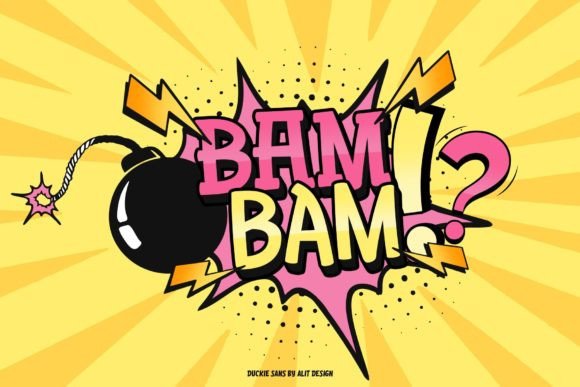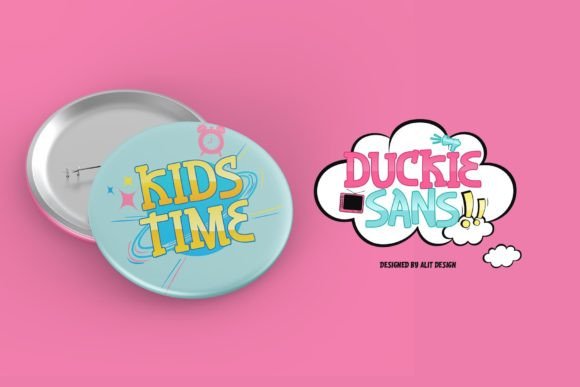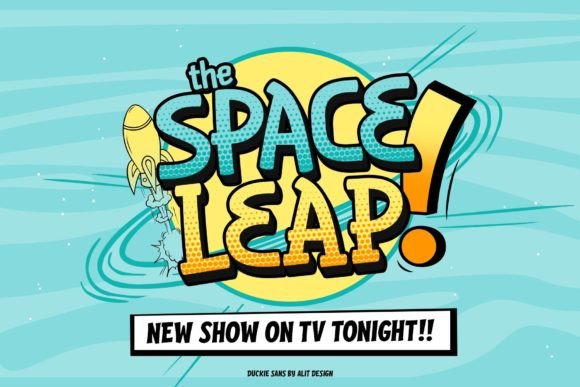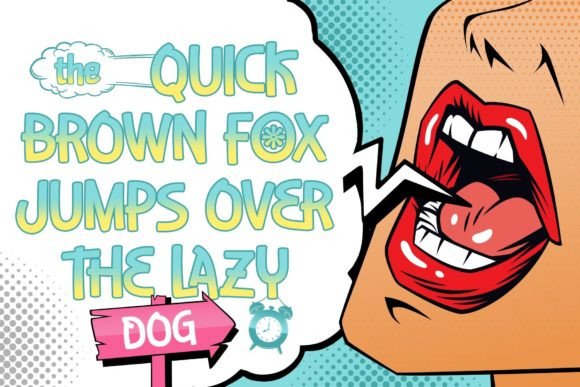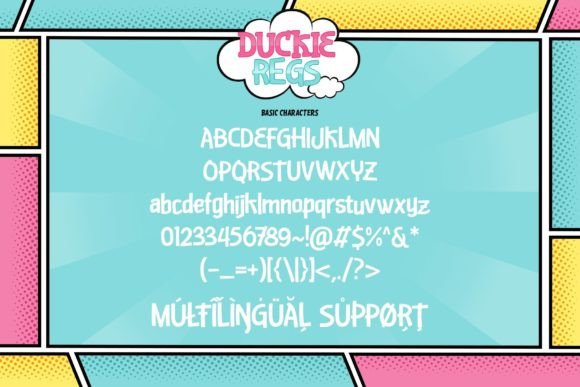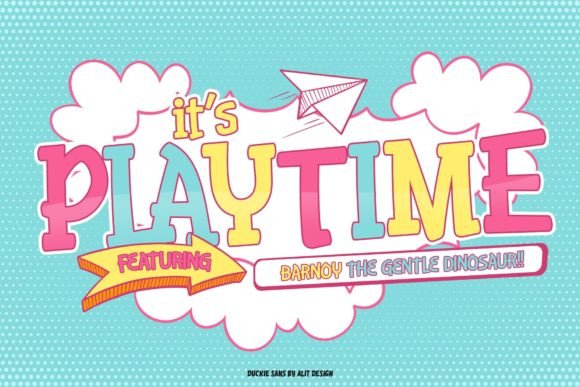
Duckie Sans Font: The Ultimate Choice for Playful and Kid-Friendly Designs
Are you a designer or crafter looking for a font that can add a touch of playfulness and friendliness to your designs? Look no further than Duckie Sans Font! This adorable display font is perfect for creating kid-friendly designs, cartoonish posters, headlines, eye-catching social media posts, and more. In this article, we’ll dive into the world of Duckie Sans Font and explore its features, benefits, and uses.
What is Duckie Sans Font?
Duckie Sans Font is a cute and playful display font that is designed to bring a smile to your face. Its cheerful personality and friendly vibe make it an ideal choice for designers and crafters who want to create fun and engaging designs. The font features rounded edges, soft curves, and a bouncy feel that gives it a unique and charming personality.
Key Features of Duckie Sans Font
So, what makes Duckie Sans Font so special? Here are some of its key features:
- Cute and Playful Design: Duckie Sans Font is designed to be fun and playful, making it perfect for kid-friendly designs and projects.
- Cheerful Personality: The font’s cheerful personality and friendly vibe make it ideal for creating designs that appeal to a younger audience.
- Rounded Edges and Soft Curves: The font’s rounded edges and soft curves give it a smooth and friendly feel.
- Bouncy Feel: The font’s bouncy feel adds to its playful and energetic personality.
- Display Font: Duckie Sans Font is a display font, making it perfect for headlines, titles, and short text.
Uses of Duckie Sans Font
Duckie Sans Font is a versatile font that can be used in a variety of projects, including:
- Kid-Friendly Designs: The font is perfect for creating designs for kids, such as children’s books, educational materials, and kids’ websites.
- Cartoonish Posters: Duckie Sans Font is ideal for creating cartoonish posters, flyers, and brochures.
- Headlines and Titles: The font’s bold and playful design makes it perfect for headlines and titles.
- Social Media Posts: Duckie Sans Font can be used to create eye-catching social media posts that appeal to a younger audience.
- Crafting Projects: The font can be used in various crafting projects, such as scrapbooking, card making, and DIY projects.
Benefits of Using Duckie Sans Font
So, why should you use Duckie Sans Font in your designs? Here are some benefits:
- Adds a Touch of Playfulness: The font adds a touch of playfulness and friendliness to your designs.
- Appeals to a Younger Audience: Duckie Sans Font is perfect for designs that appeal to a younger audience.
- Easy to Read: The font is easy to read, even in large sizes.
- Versatile: Duckie Sans Font can be used in a variety of projects and designs.
Tips for Using Duckie Sans Font
Here are some tips for using Duckie Sans Font in your designs:
- Use it for Headlines and Titles: The font is perfect for headlines and titles, so use it to grab attention.
- Pair it with Other Fonts: Duckie Sans Font can be paired with other fonts to create a unique and interesting design.
- Experiment with Colors: The font looks great in bright and bold colors, so experiment with different colors to add some fun to your design.
- Keep it Simple: Don’t overcomplicate your design. Keep it simple and let the font do the talking.
In conclusion, Duckie Sans Font is a cute and playful display font that is perfect for creating kid-friendly designs, cartoonish posters, headlines, eye-catching social media posts, and more. Its cheerful personality and friendly vibe make it an ideal choice for designers and crafters who want to add a touch of playfulness to their designs. With its rounded edges, soft curves, and bouncy feel, Duckie Sans Font is sure to bring a smile to your face. So, go ahead and give it a try!